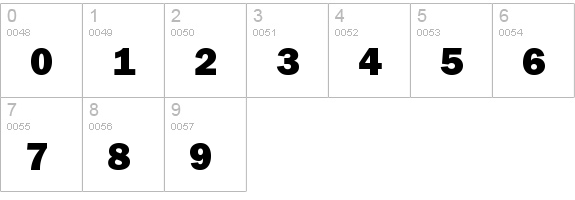
FranklinGothicEF-Heavy is a heavy, high-impact variant in the FranklinGothicEF typeface family \xE2\x80\x94 well suited to high-impact headlines, posters, and display advertising.
Franklin Gothic EF-Heavy is a bold and commanding font that exudes strength and sophistication. Its sturdy letterforms and thick strokes make it perfect for headlines, titles, and other prominent text elements that demand attention. The font's modern yet timeless design ensures that it remains a popular choice for various design projects. What sets Franklin Gothic EF-Heavy apart is that it is available for free download at FontsMarket.com. This means that designers and creatives have easy access to this powerful font without any cost barriers. Whether you're working on a print or digital project, Franklin Gothic EF-Heavy's versatility and impact make it a valuable addition to your font library. Make a bold statement with Franklin Gothic EF-Heavy and elevate your designs with its commanding presence. Download this exceptional font for free today at FontsMarket.com and unleash its potential in your projects.